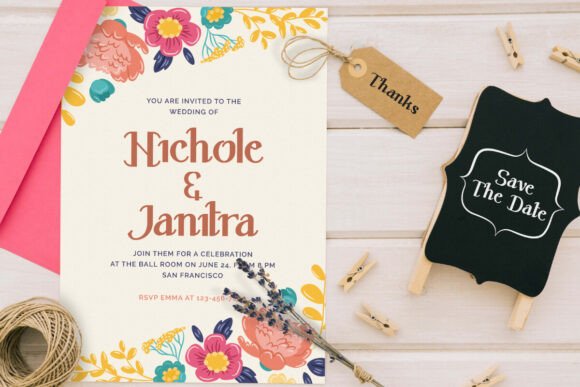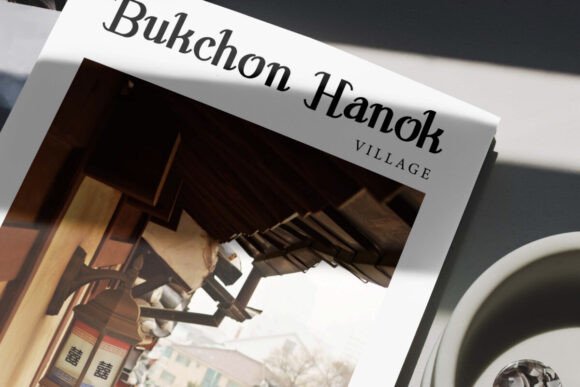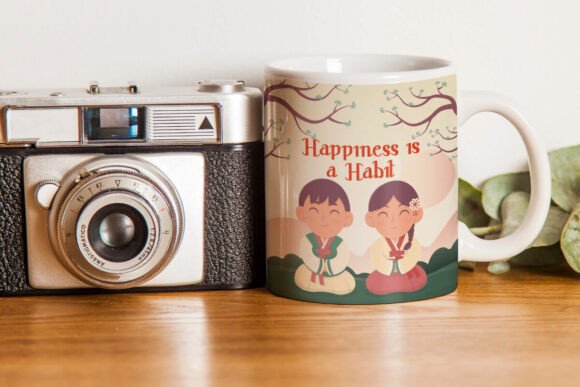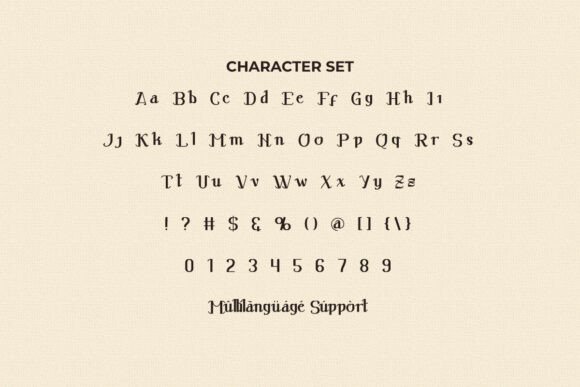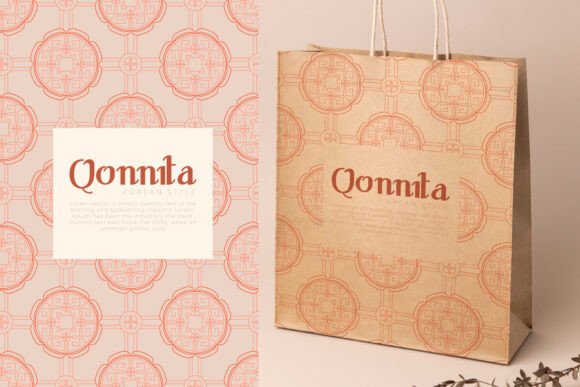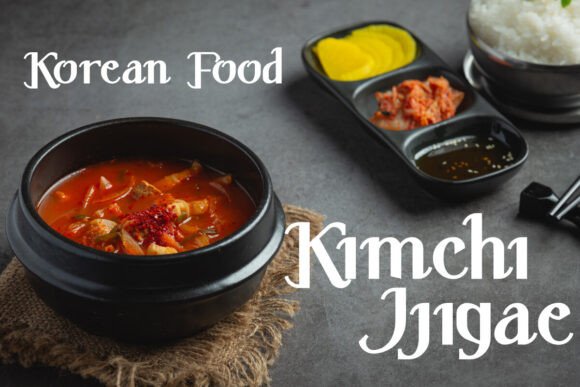
Discover the Elegance of Drama Korea Font: Elevate Your Designs with a Touch of K-Culture
In the realm of typography, fonts play a pivotal role in conveying the essence and aesthetic of a brand or creative project. For designers and crafters looking to infuse their work with a unique blend of modernity and cultural flair, the Drama Korea Font emerges as an exceptional choice. Inspired by the captivating titles of Korean dramas, this stylish modern serif font is not just a typographical element; it’s a statement piece that can elevate the artistic value of any project.
The Inspiration Behind Drama Korea Font
Drama Korea Font draws its inspiration from the visually stunning titles of Korean series, which are renowned for their elegant and sophisticated typography. The writing style in Korea is distinctive, often characterized by its clear, structured, and aesthetically pleasing presentation. By capturing the essence of this style, Drama Korea Font brings a piece of K-culture to your designs, allowing you to connect with a broader audience or simply add a unique touch to your creative work.
Versatility Across Industries
One of the standout features of Drama Korea Font is its versatility. Whether you’re working on a project for accessories, advertisement, café, clothing brand, content creation, entertainment, events or festivals, fashion, film, graphic design, handicrafts, lodging, movies, photography, printing, publishing, restaurants, weddings, or writing, this font can seamlessly integrate and enhance your design. Its sophisticated look appeals to a wide range of audiences, making it an excellent choice for any industry looking to add a touch of elegance and modernity.
Why Choose Drama Korea Font?
- Cultural Uniqueness: It offers a distinctive look that is inspired by Korean drama titles, providing a unique cultural element to your designs.
- Artistic Value: The font is capable of increasing the artistic value of your projects, making them stand out in a crowded creative landscape.
- Modern Serif Appeal: As a modern serif font, it strikes a balance between tradition and contemporary design, appealing to both classic and modern tastes.
- Wide Applicability: Its suitability for various industries means you can use it across different projects, making it a valuable addition to your typographical toolkit.
Tips for Using Drama Korea Font
To make the most of Drama Korea Font, consider the following tips:
- Pair with Complementary Fonts: For maximum effect, pair Drama Korea Font with fonts that complement its modern serif style. A sans-serif font can create a nice contrast, highlighting the elegance of Drama Korea.
- Use in Titles and Headings: Its unique style makes it perfect for titles and headings. Use it to draw attention and add a touch of sophistication to your designs.
- Experiment with Colors: While the font itself is a significant design element, experimenting with different colors can further enhance its impact. Consider colors that reflect the mood or brand identity you’re aiming to convey.
Drama Korea Font is more than just a typographical choice; it’s a gateway to incorporating a piece of Korean culture and modern elegance into your designs. Whether you’re a designer, crafter, or simply someone who appreciates the finer details of typography, this font offers a unique opportunity to elevate your creative projects. With its inspiration from Korean drama titles, versatility across industries, and the ability to enhance artistic value, Drama Korea Font is poised to become a favorite in your typographical arsenal.
Embrace the elegance and modernity of Drama Korea Font, and let it be the touch that transforms your designs into memorable and impactful works of art.